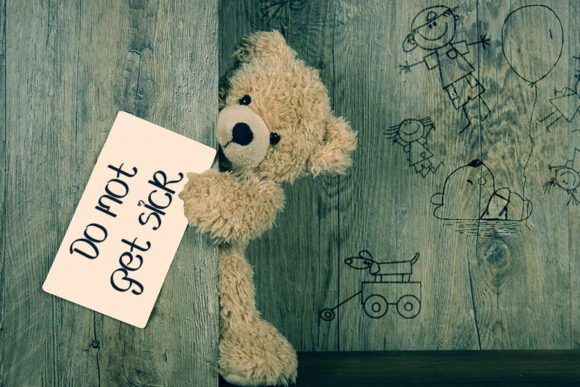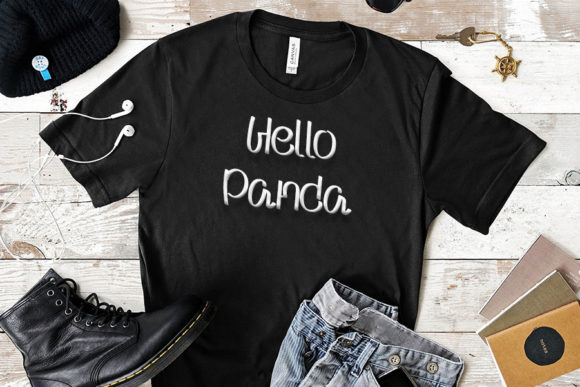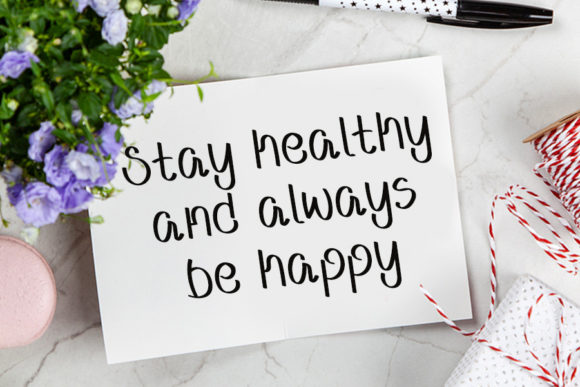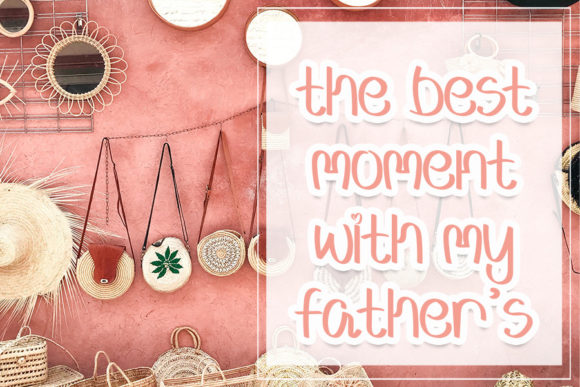
Introduction to Micky Bear Font
You know that moment when you’re working on a creative project and you just can’t seem to find the right font to bring it all together? The one that adds a touch of whimsy, a dash of personality, and a whole lot of charm? Well, we’ve got some exciting news for you – your search is over with the Micky Bear Font!
This delightful, all-around, and clean handwritten font is the perfect design resource for any creative project. Its flexibility and neat style will brighten up each of your designs, making it a valuable addition to your toolkit. And the best part? It’s available for a free download, so you can start experimenting with it right away.
With its high-quality design and transparent background, the Micky Bear Font is the perfect choice for designers looking to add a unique touch to their work. So why settle for a bland, run-of-the-mill font when you can have a font that’s as fun and playful as it is professional?
Key Features of Micky Bear Font
- Unique and playful design perfect for creative projects and kids’ content
- High-quality font with a transparent background for easy editing and customization
- Includes uppercase and lowercase letters, numbers, and punctuation marks
- Designed with a fun and modern aesthetic, ideal for design resources and creative assets
Honest Review: Micky Bear Font
I recently stumbled upon the Micky Bear Font and I must say, it’s a hidden gem in the world of design resources. I was looking for a fun and playful font to add some personality to my latest creative project and this one delivered.
- ✨ The Micky Bear Font comes in a high-quality, transparent background, making it perfect for digital design projects.
- ⚠️ The font is only available in a limited number of weights, which may not be suitable for all design projects.
- ⚠️ The font’s compatibility with certain software may be limited, so be sure to test it thoroughly before use.
Overall, I’m really impressed with the Micky Bear Font. It’s a great addition to any design resource collection and I’ll definitely be using it again in the future. If you’re looking for a fun and versatile font, I’d definitely recommend giving it a try.
The Micky Bear Font is suitable for various creative projects, including social media graphics, logos, business cards, posters, presentations, and reports. Its high-quality design and transparent background feature make it an ideal choice for designers and non-designers alike.